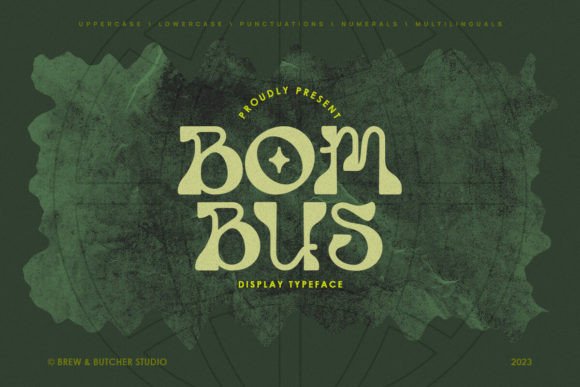
Introducing Bombus Font, the ultimate choice for all your display poster needs! Created by the talented team at Brew & Butcher Studio, this font is designed to captivate and inspire. With its unique character and curved shape, Bombus brings a psychedelic vibe to your projects, making them stand out from the crowd.
One of the key features that sets Bombus apart is its smooth curves and attractive firmness of shape. Each letter is meticulously crafted to ensure a visually stunning presentation. Whether you're creating headers, headlines, posters, flyers, banners, landing pages, portfolios, or album covers, Bombus is the ideal font to make a bold statement.
This font offers a wide range of options to suit your creative needs. With both uppercase and lowercase letters, you have the flexibility to mix and match for a personalized touch. Additionally, Bombus supports multiple languages, making it accessible to a global audience.
When you choose Bombus Font, you're not just getting a font – you're unlocking a world of endless possibilities. Let your imagination run wild as you create stunning visuals that leave a lasting impression on your audience. From captivating headlines to eye-catching posters, Bombus will elevate your designs to new heights.